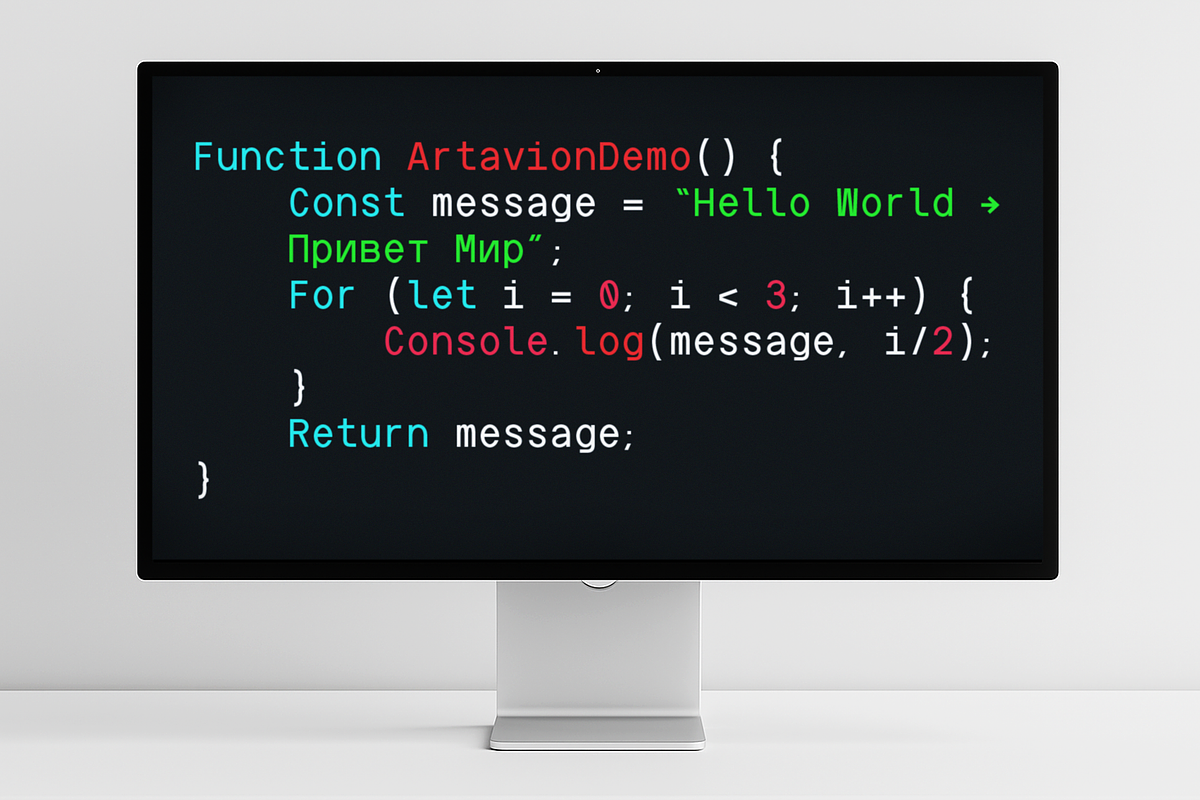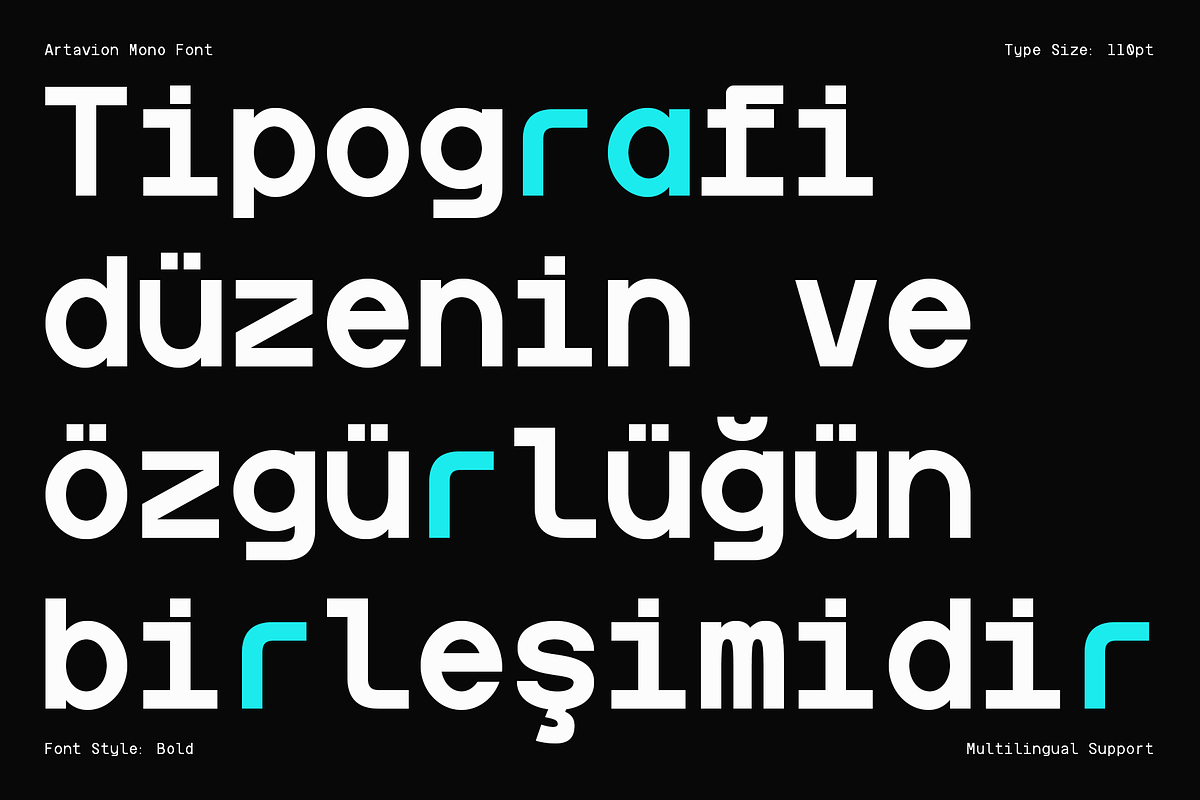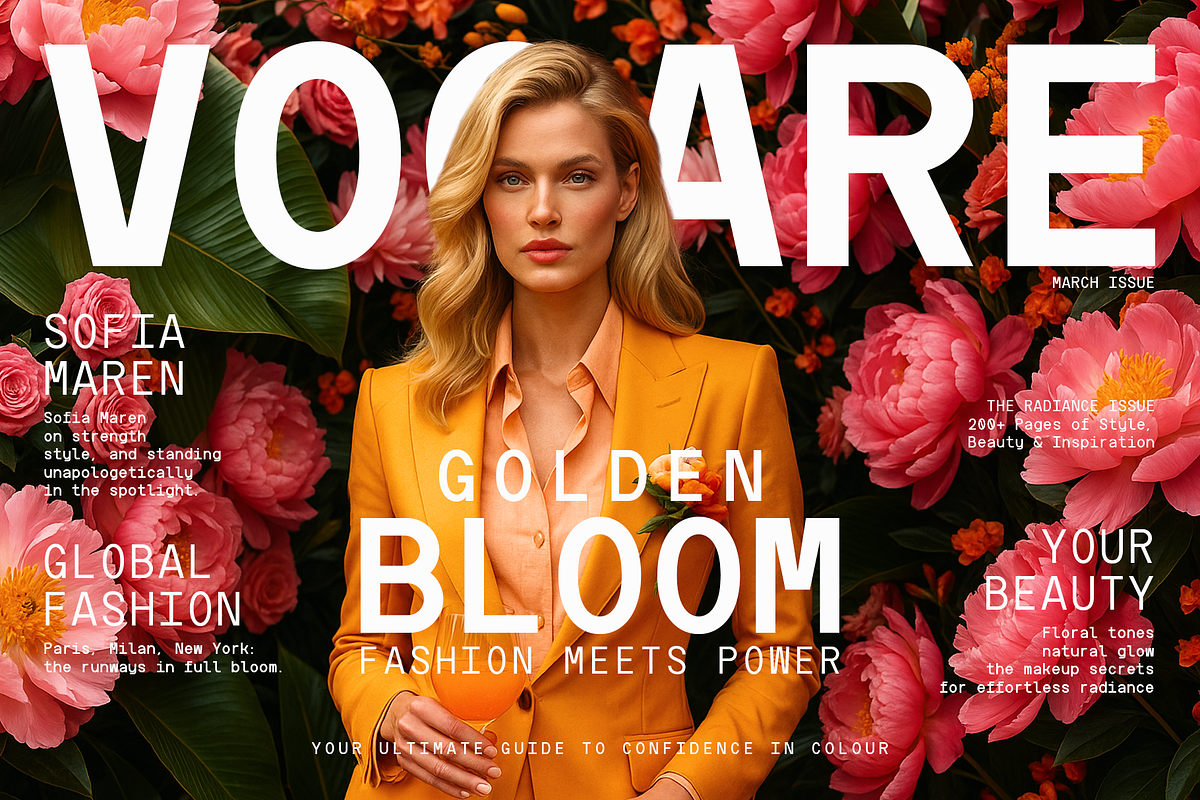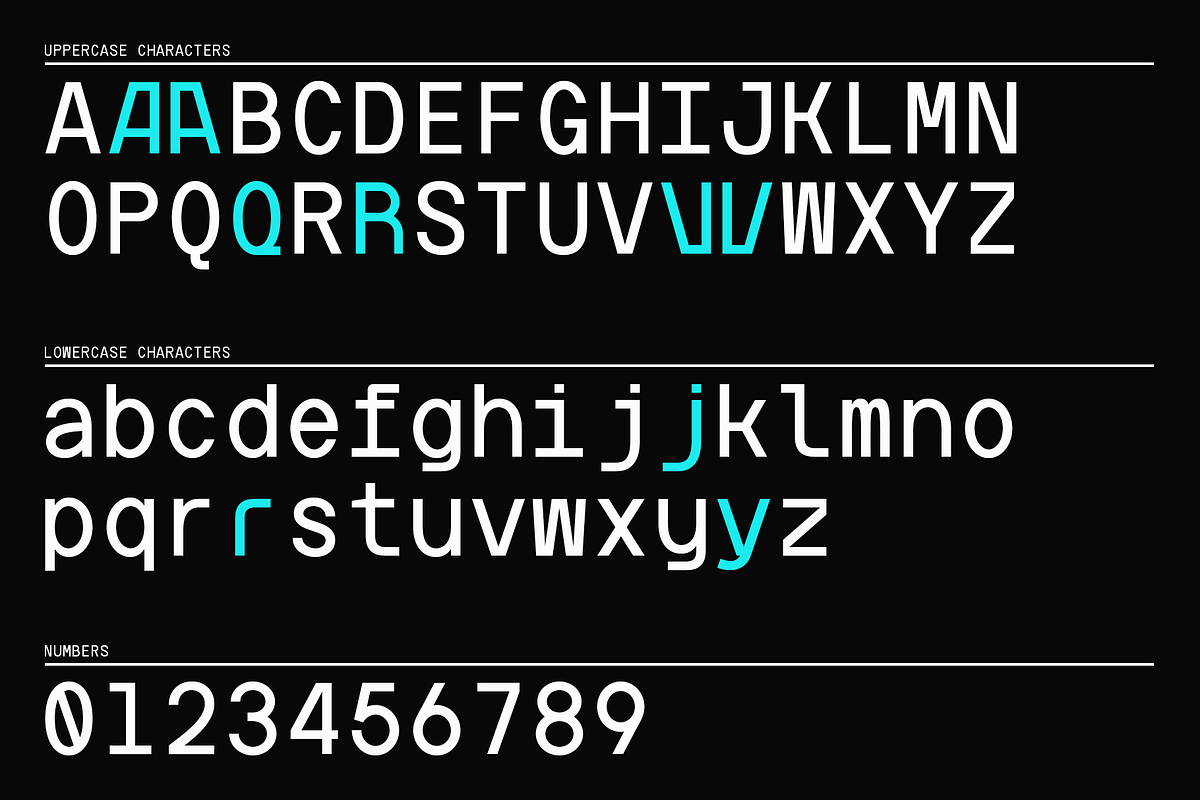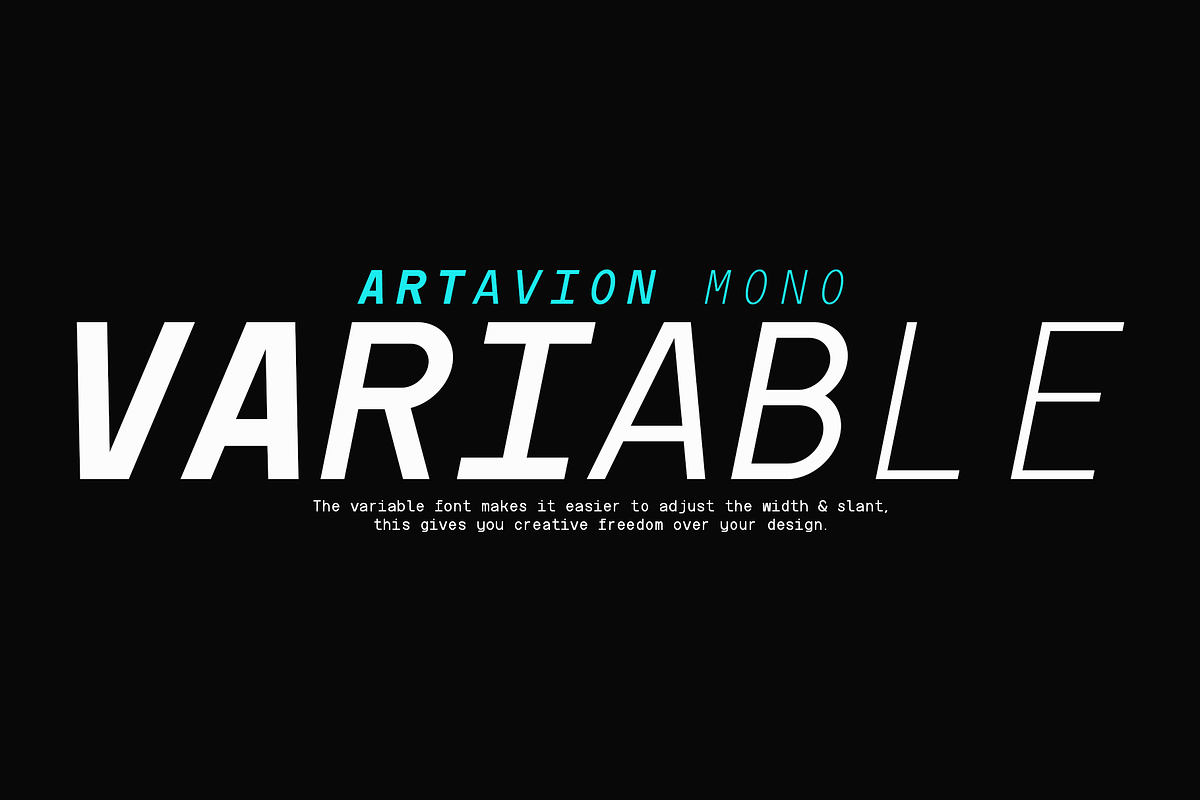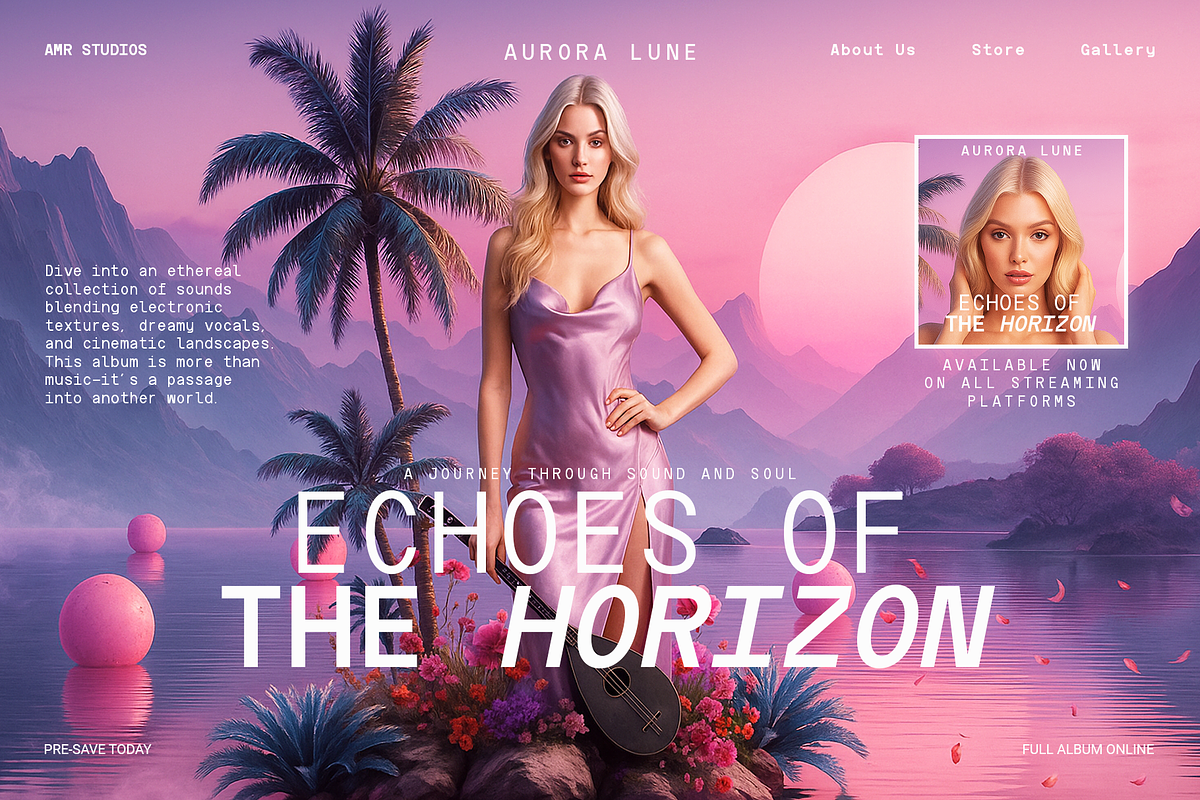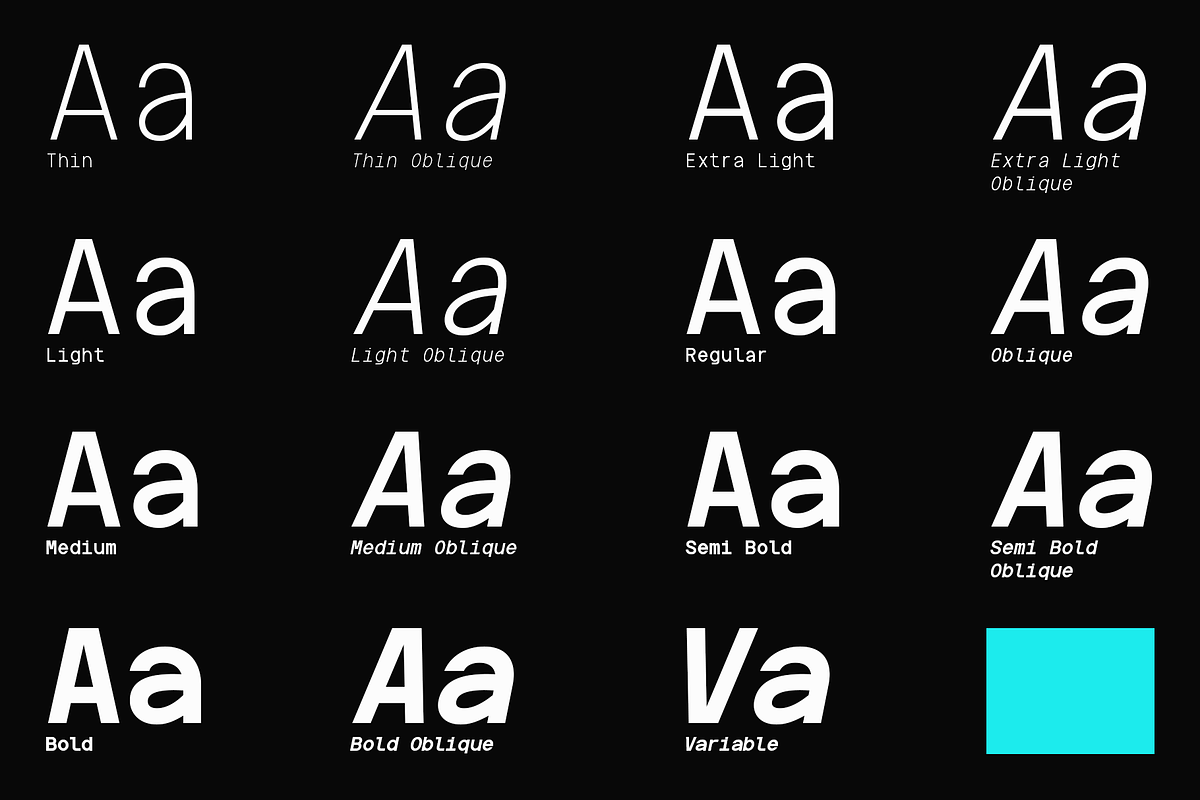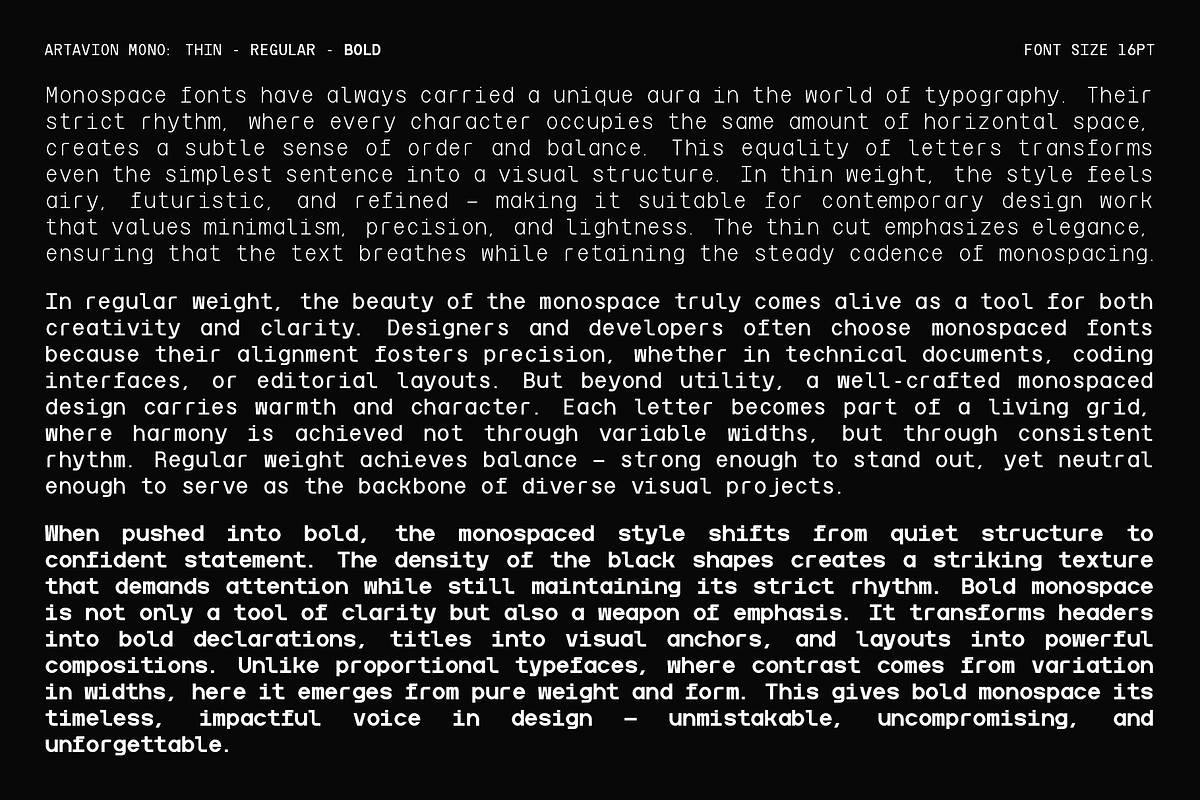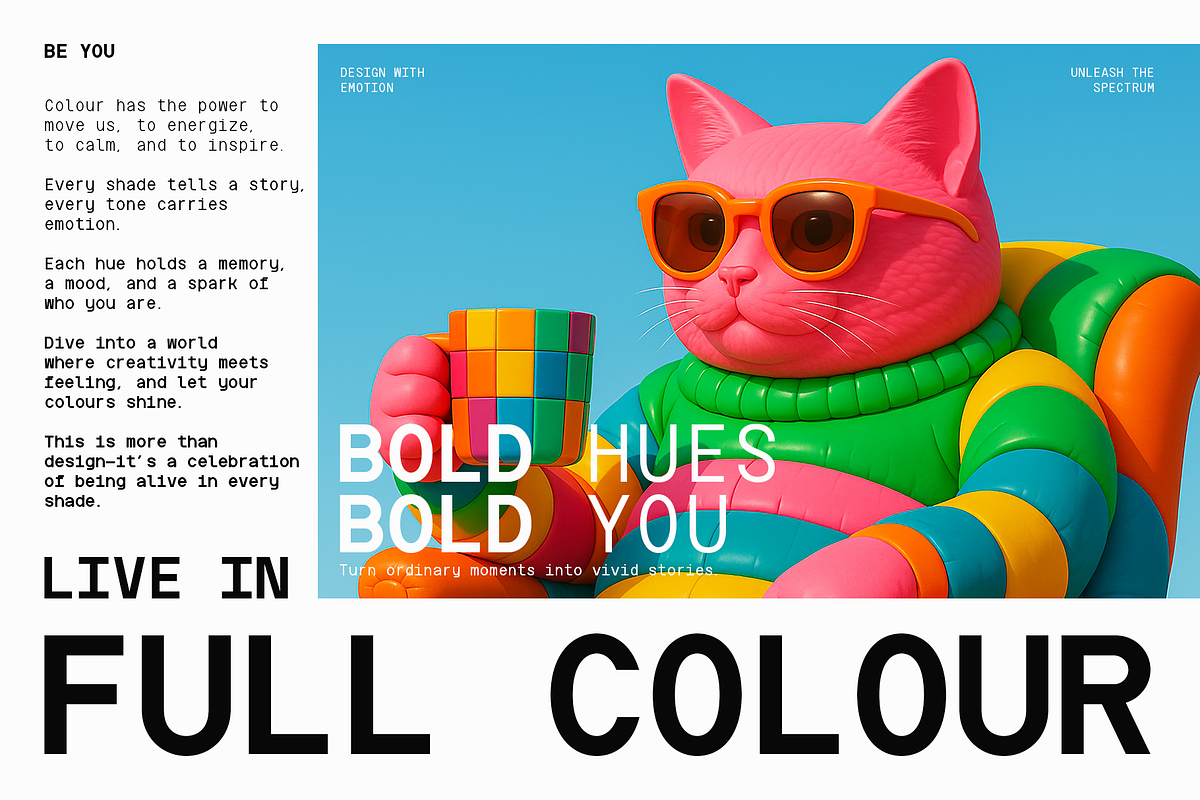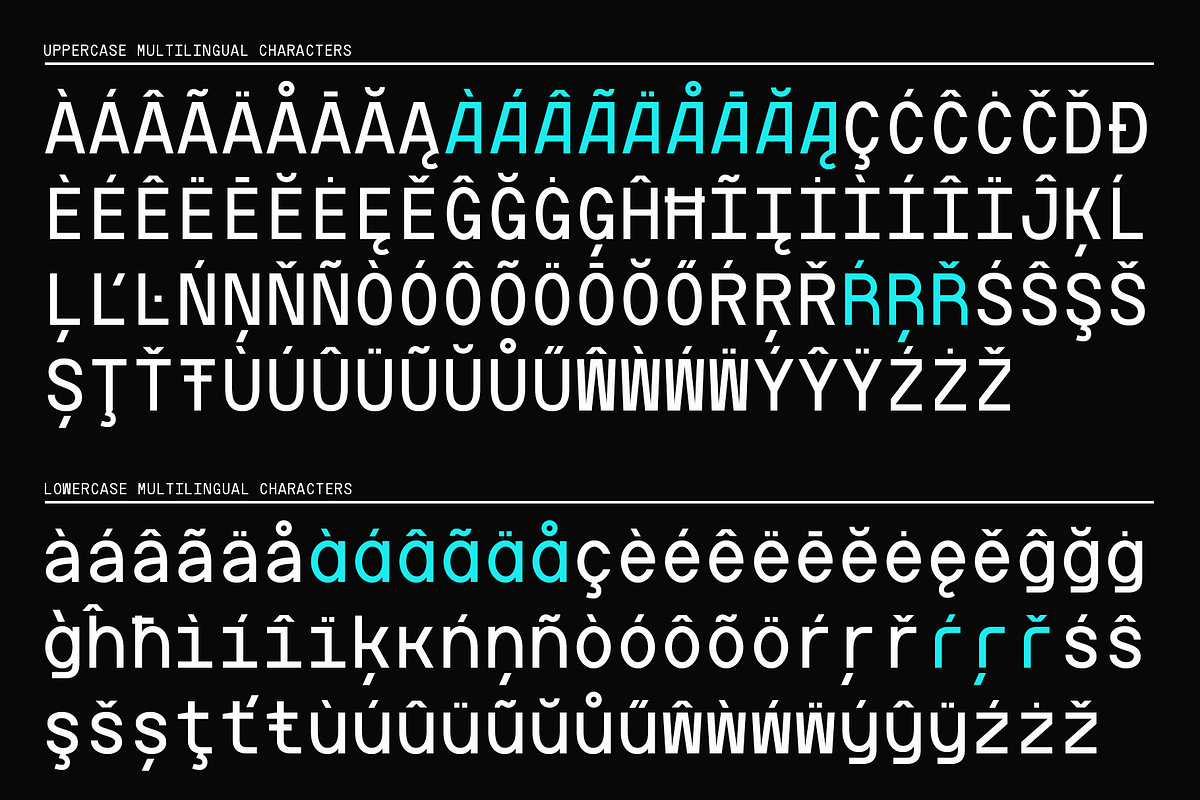
Artavion Mono - Monospace Typeface
Artavion Mono is a modern monospace typeface reimagined for the world of graphic design and expressive branding. Unlike traditional coding fonts, Artavion Mono blends precision structure with creative alternates and retro-futuristic flair, giving designers the power to transform minimal layouts into bold statements.
Its variable typography system lets you fine-tune weight and style in real time—making it just as adaptable for dynamic layouts, editorial spreads, and kinetic typography as it is for timeless branding.
With extended Latin and Cyrillic multilingual support, Artavion Mono is perfect for agencies and global brands that need design consistency across markets. Every character balances clarity with personality, giving your work the expressive edge that today’s forward-thinking brands demand.
BEST FOR:
- Bold editorial design.
- Expressive branding & campaigns.
- Futuristic interfaces & UI/UX systems.
- Designers seeking graphic design flexibility.
- Posters, motion graphics, and kinetic typography.
Artavion Mono is not just another monospace font, it’s a graphic design tool where brutalist impact, retro-futurism, and sustainable sophistication meet in one adaptable typeface.